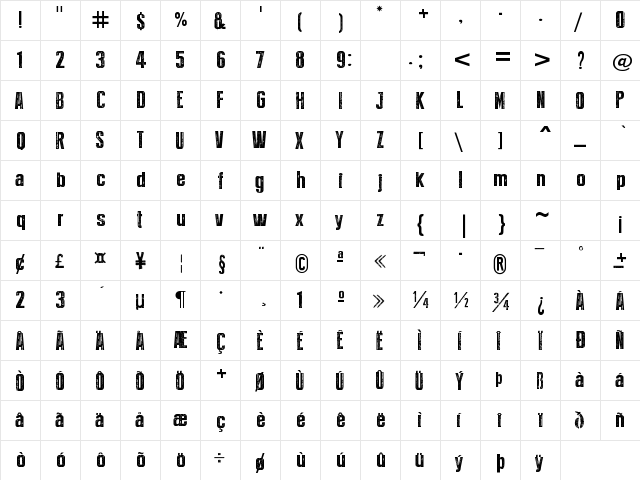
Press Style Extra L Regular
| Foundry | Galdino Otten |
| Designer | 頇aldino Otten. 2013. All Rights Reserved |
Design Context for Press Style Extra L Typeface
Press Style Extra L is a composed and adaptable typeface that performs quietly and consistently across a wide range of design contexts.